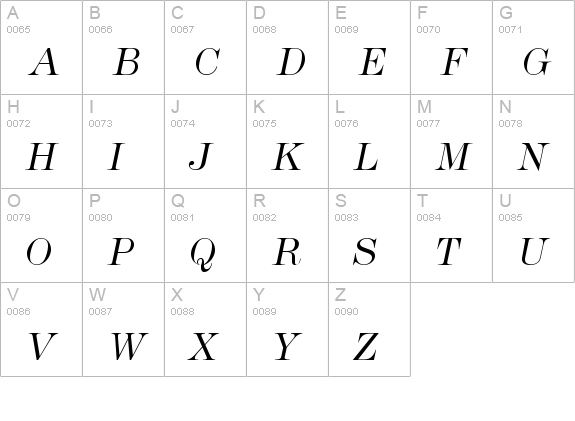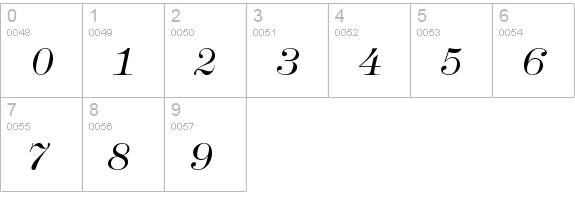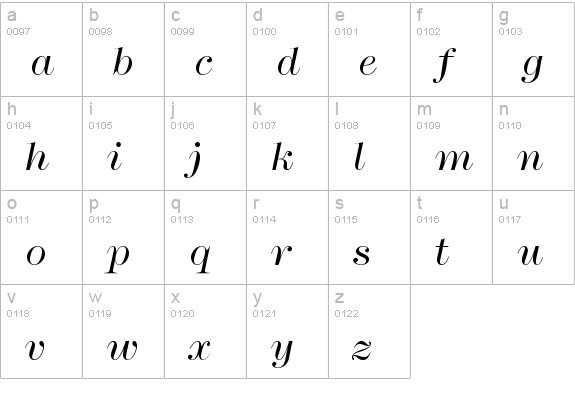
ModernNo216EF-LightItalic is a sleek and elegant font that exudes a sense of sophistication and modernity. Its light italic style brings out a touch of delicacy and refinement, making it perfect for adding a subtle flair to any design project. The slender and flowing letterforms of this font create a harmonious balance between readability and style. What makes ModernNo216EF-LightItalic even more appealing is the fact that it is available for free download at FontsMarket.com. This means that you can easily access this high-quality font without any cost, making it a valuable asset for designers, creatives, and anyone looking to enhance their projects with a touch of elegance. Whether you're working on a branding project, a website design, or any other creative endeavor, ModernNo216EF-LightItalic is sure to make a lasting impression with its unique blend of modernity and sophistication. Download this font today and elevate your designs with its timeless appeal.